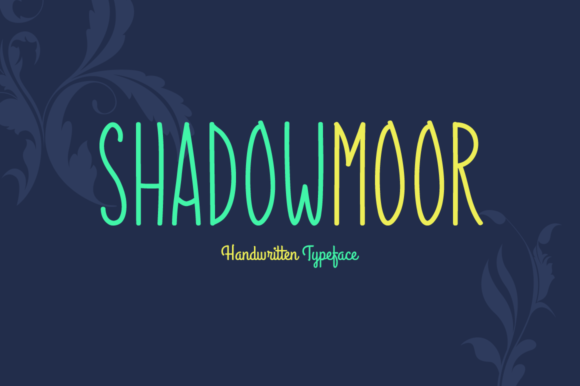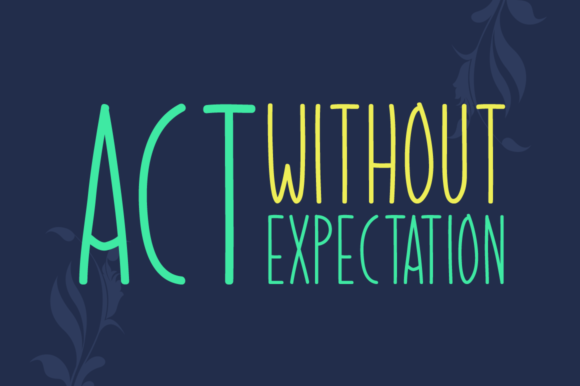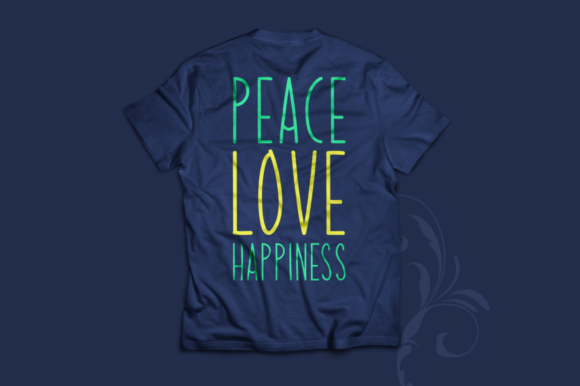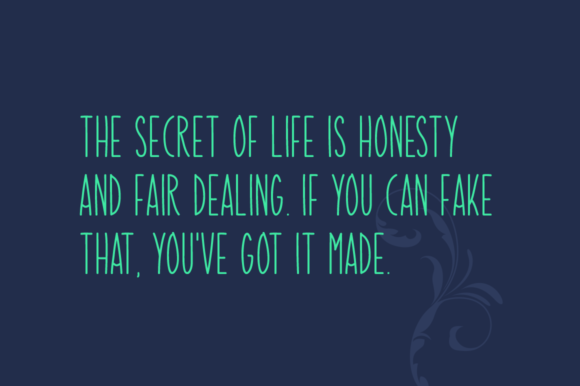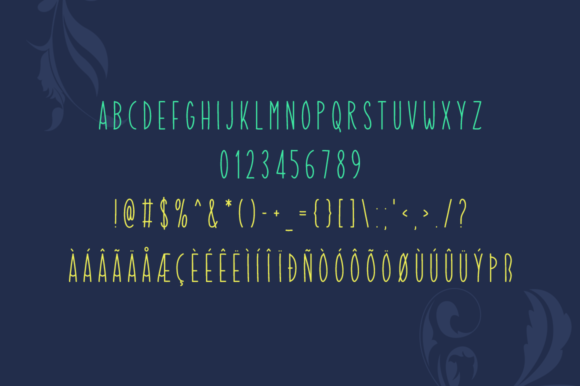
Shadowmoor Font
About Shadowmoor Font
The Shadowmoor is a brand new handwritten font. It has a great readability an is perfectly suited for stationery, logos, t-shirt, paper, print designs, website headers, photo frames, flyers, music covers, posters, image sliders, and much more.